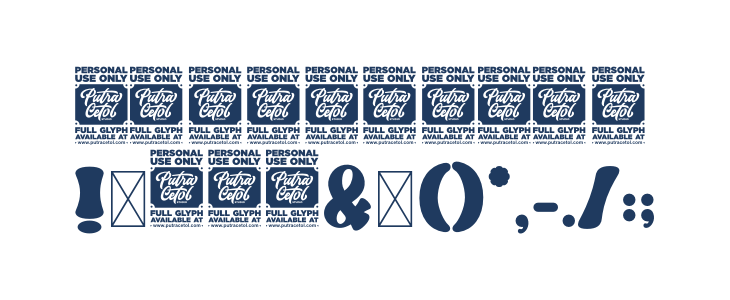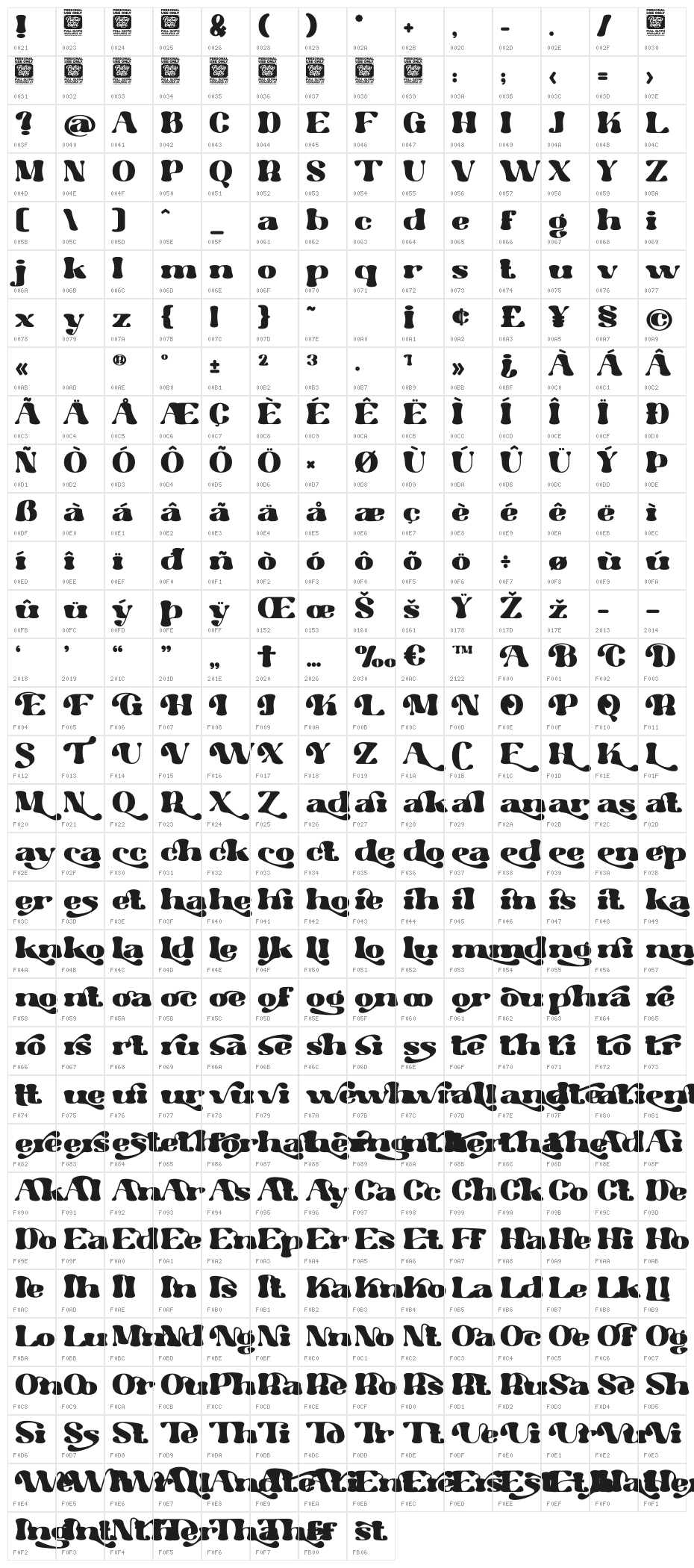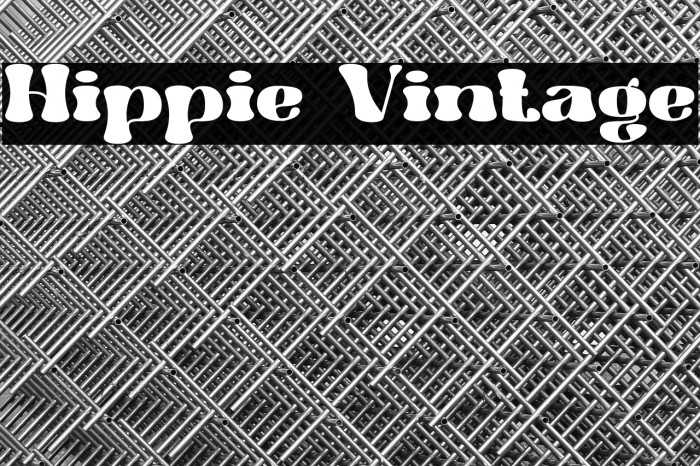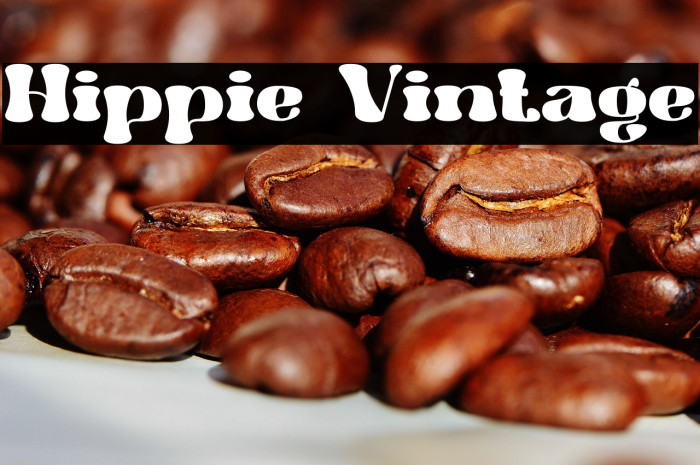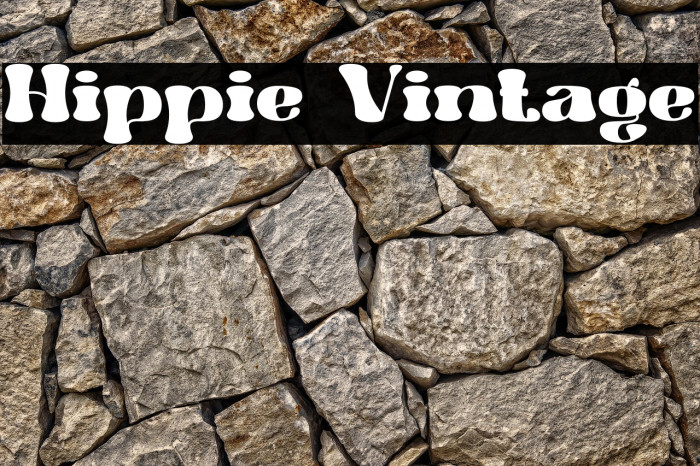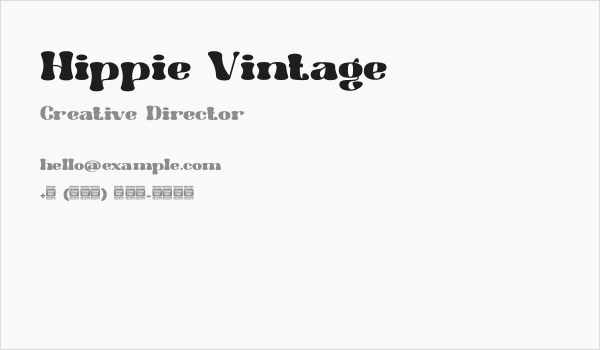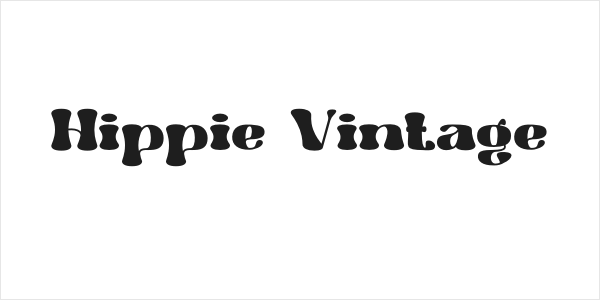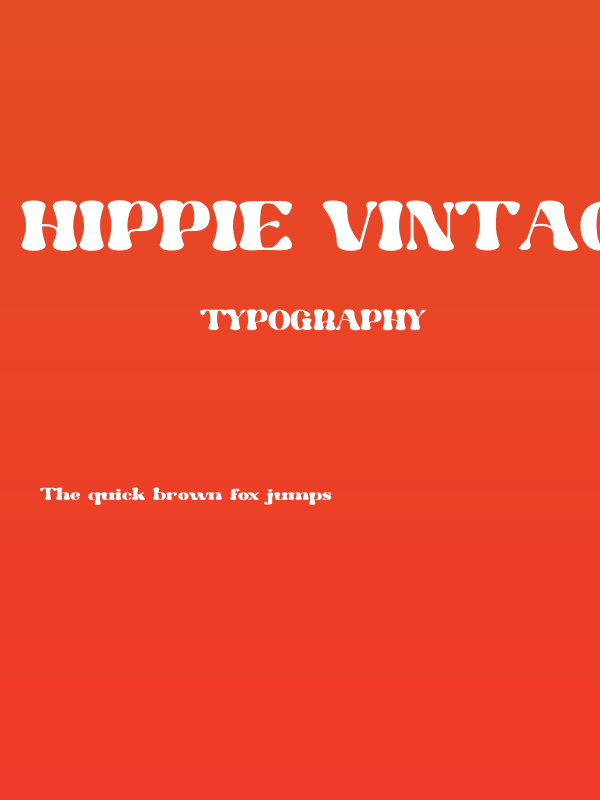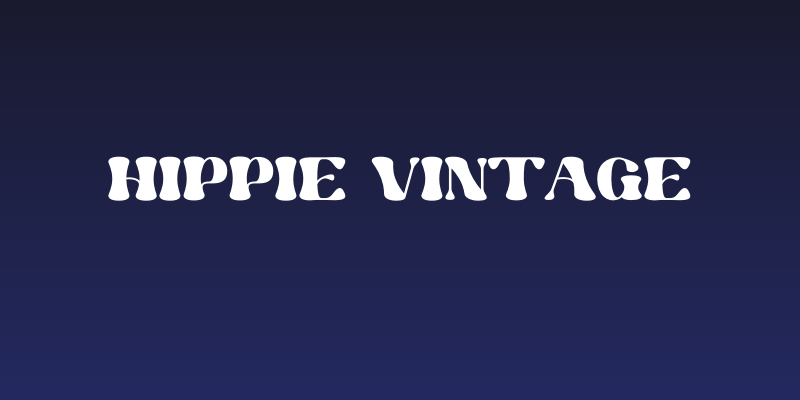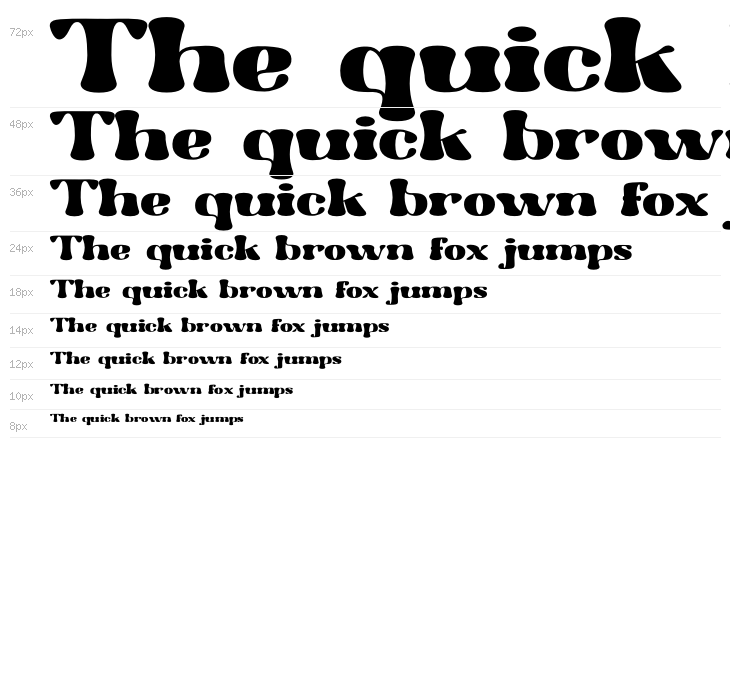
Hippie Vintage Font
Hippie Vintage Description
This font exudes a retro, vintage vibe with its bold and playful design. The characters are thick and rounded, giving it a groovy, 70s-inspired aesthetic. The uppercase letters have a strong presence, while the lowercase letters maintain a consistent flow with slightly exaggerated curves. The numbers and special characters follow the same bold style, ensuring uniformity across all glyphs. This font is perfect for capturing attention with its unique and nostalgic feel.
| Proposed Projects | Ideal for retro-themed posters, album covers, branding for vintage products, and creative design projects that require a nostalgic touch. |